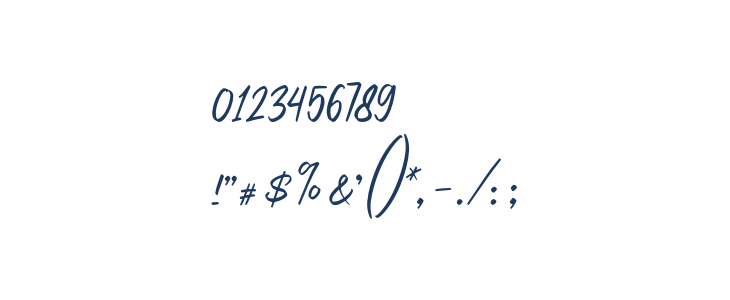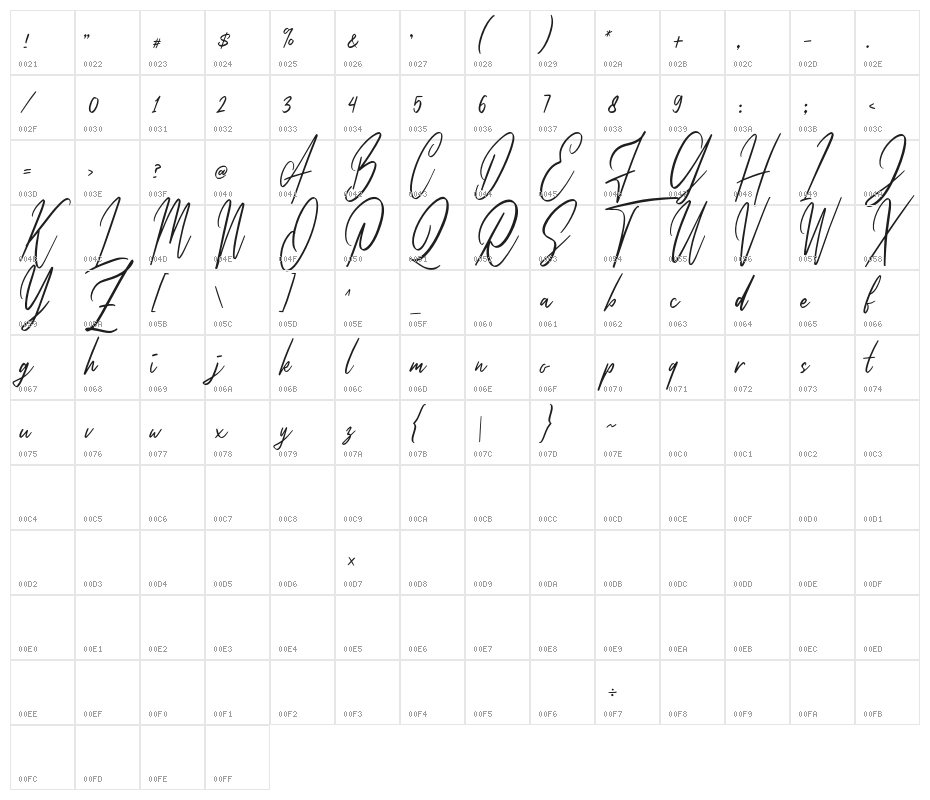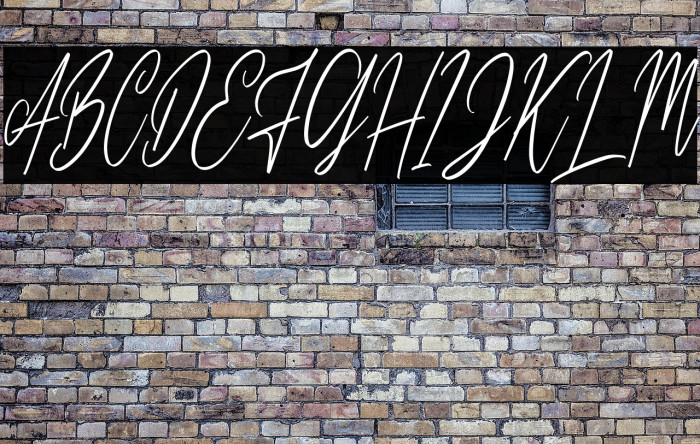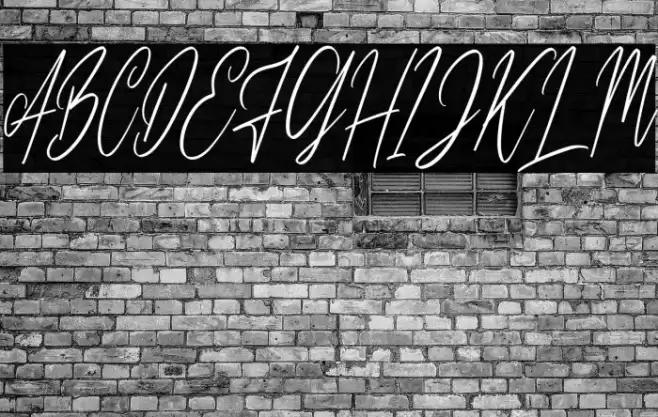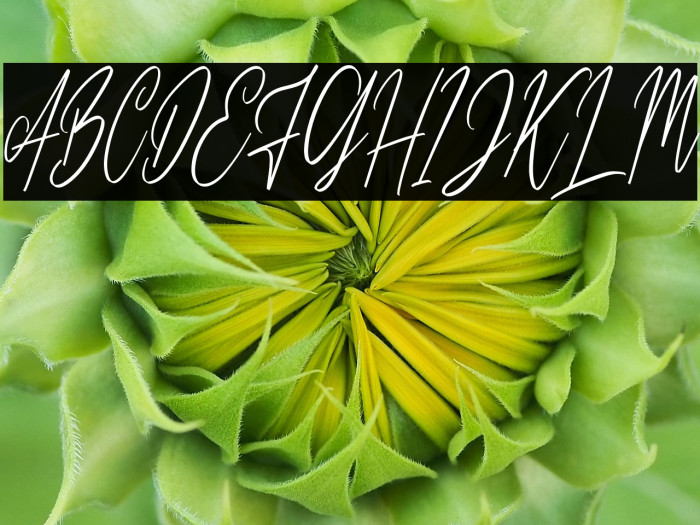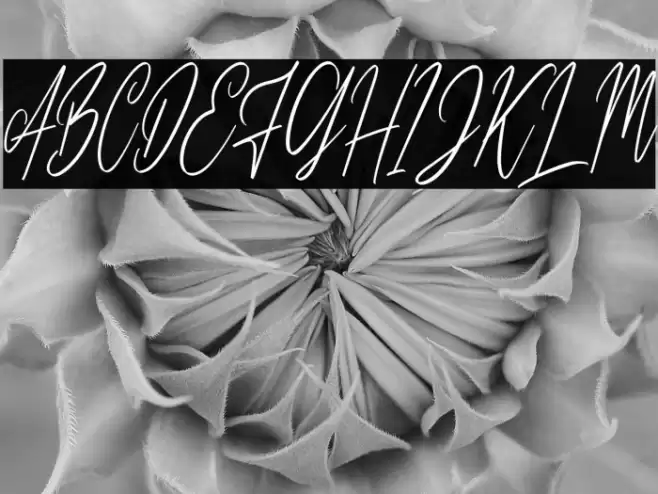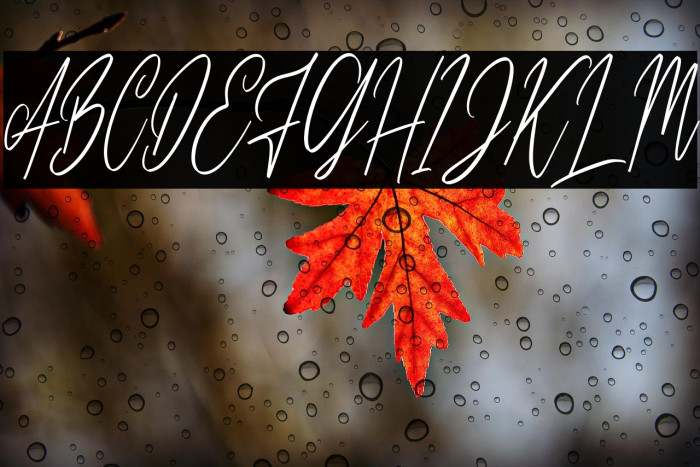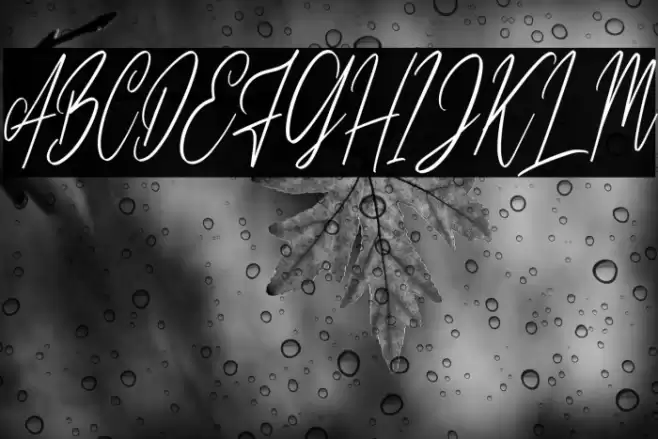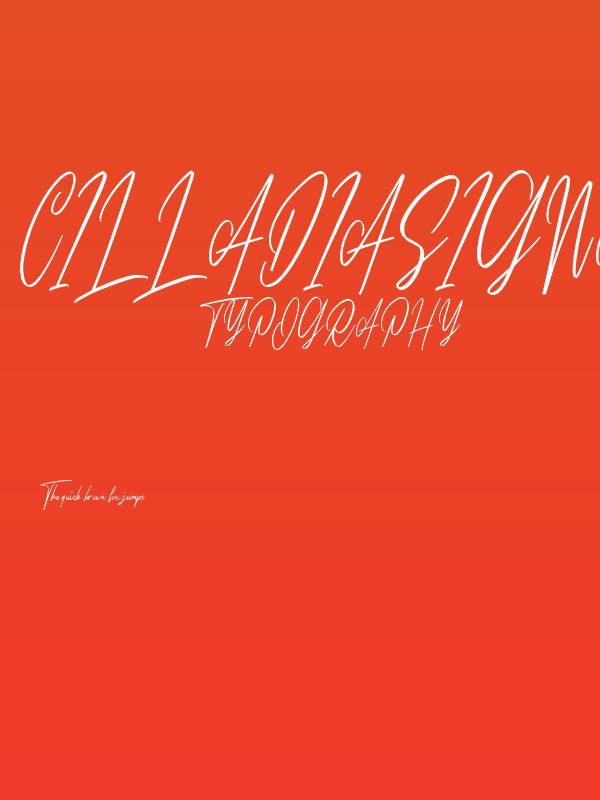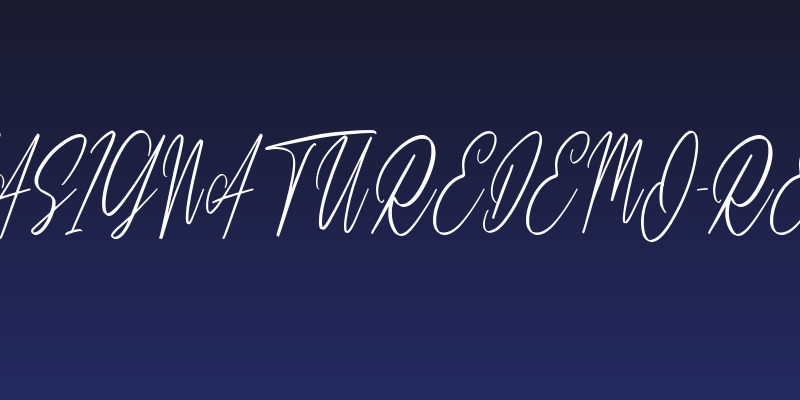
CilladiaSignatureDEMO-Regular Font
CilladiaSignatureDEMO-Regular Description
This font exudes elegance and sophistication with its flowing, cursive script style. The characters are intricately designed, featuring smooth, continuous strokes that mimic the fluidity of handwriting. The uppercase letters are tall and slender, while the lowercase letters maintain a consistent flow, enhancing readability. The numbers and special characters are crafted with the same attention to detail, ensuring a cohesive look across all elements. This font is perfect for adding a personal touch to any project, whether it's a formal invitation or a stylish logo.